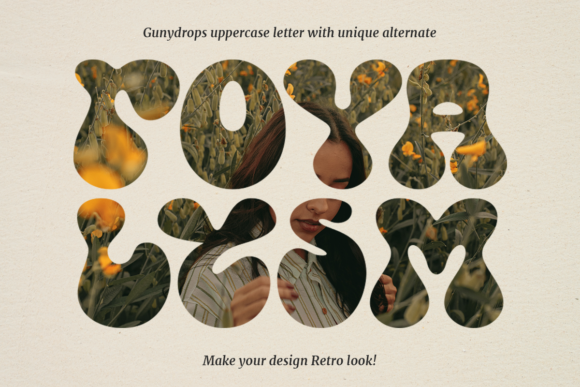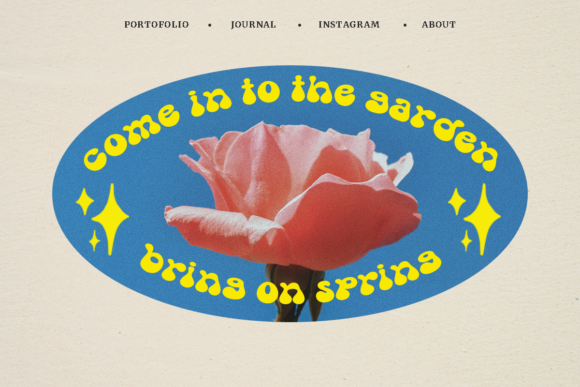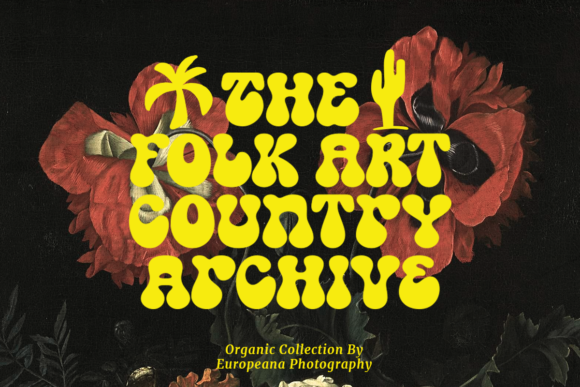
Introduction to Gunydrops Font
Have you ever stumbled upon a font that immediately sparks creativity and puts a smile on your face? For designers, discovering a high-quality font like Gunydrops Font can be a game-changer. Whether you’re working on a children’s activity or a school project, this cool, wavy, and bubbly display font is the perfect choice to bring your ideas to life.
Imagine the excitement of a child’s face as they see their name or a fun phrase written in Gunydrops Font, with its transparent background and playful flair. As a design resource, Gunydrops Font offers endless possibilities for creative projects, from invitations to educational materials.
Key Features of Gunydrops Font
- High-quality, unique font design ideal for creative projects and design resources.
- Transparent background and customizable design elements to fit your specific needs.
- Unique, hand-drawn design elements that can add a personal touch to any creative project.
- Perfect for use in digital and print design, including logos, typography, and graphics.
Honest Review: Gunydrops Font
I recently had the chance to work with the Gunydrops Font, and I must say it’s a high-quality addition to any design resource collection. This free download has been a game-changer for my creative project, and I’m excited to share my thoughts with you.
Here are a few things that work well with Gunydrops Font: ✨
- Unique and stylish design that’s perfect for creative projects
- High-quality vectors that maintain their integrity even when scaled
- Transparent background, making it easy to work with
However, I did encounter a few limitations: ⚠️
- Limited character set, which can be a concern for long-form content
- Not suitable for print materials, as the font may not render well on certain paper types
Overall, I’m really impressed with Gunydrops Font. It’s a valuable design resource that can elevate your creative project to the next level. With its high-quality design and transparent background, it’s a great choice for digital projects. While it may have some limitations, it’s still a fantastic addition to any designer’s toolkit.
The Gunydrops Font is commonly used for creative projects such as logo design, branding, and typography-based art. Its transparent background makes it easy to use in various design resources, including websites, social media, and print materials.
Experiment with different font sizes, colors, and styles to create a unique design. Use the font in combination with other design elements to add depth and visual interest to your project. With its high-quality design and transparent background, the Gunydrops Font is a valuable addition to any design resource.